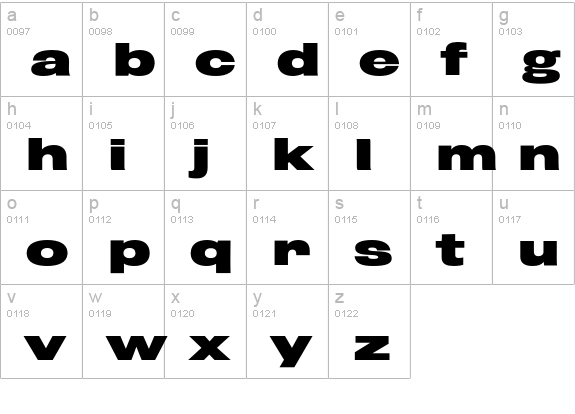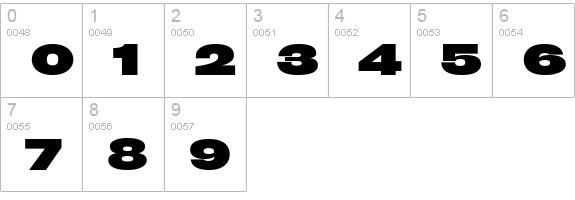
Rhode-BoldExtended Font Details
Rhode-BoldExtended font is a stunning and elegant typeface that exudes strength and sophistication. Its bold and extended letterforms command attention and make a powerful statement in any design project. The font features clean lines and sharp edges, giving it a modern and contemporary look. With its versatility, Rhode-BoldExtended font can be used in various design applications such as logos, headlines, posters, and branding materials. Its readability and legibility make it perfect for both print and digital media. What sets Rhode-BoldExtended font apart is the fact that it is available for free. Yes, you read that right! This remarkable font can be freely downloaded at FontsMarket.com. Whether you are a professional designer or a passionate hobbyist, you can now access this exceptional font without breaking the bank. So why wait? Don't miss out on the opportunity to enhance your designs with the bold and extended beauty of Rhode-BoldExtended font. Download it today for free and elevate your creative projects to new heights. Visit FontsMarket.com now and unlock the potential of this remarkable typeface.